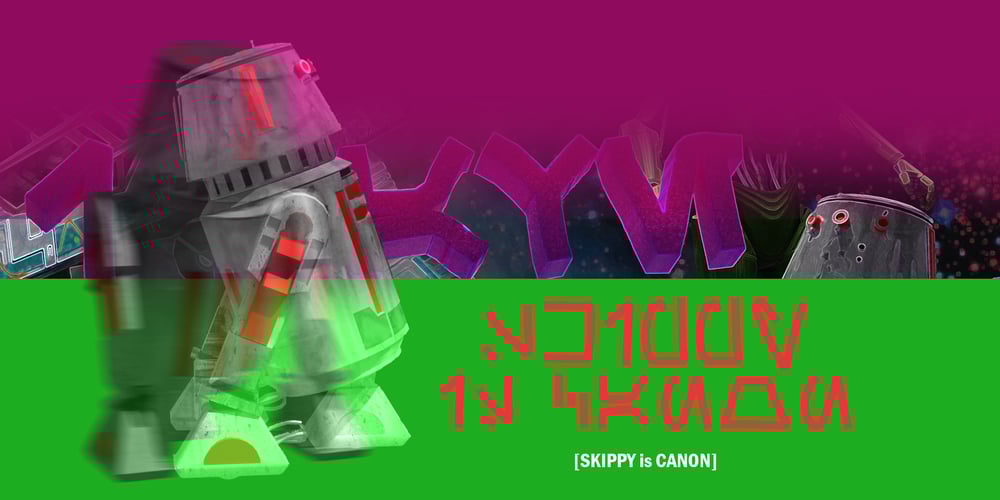
Skippy is Canon
Skippy is Canon font
Skippy is Canon Font Family was designed by Edward Schneider and published by Edd’s Aurebesh Fontworks. Skippy is Canon contains 1 styles and family package options. Working on a Star Wars project? This font is in the main Star Wars written language of Aurebesh, and contains all the additional letters found in the language as glyphs. Designed to be a blocky workmanlike font that has the roughness commonly found in Star Wars related visuals. All numbers are also included as well as central punctuation symbols.The name is a very obscure reference to the old Star Wars expanded universe, when a force-sensitive droid self destructed in order for Uncle Owen to purchase R2-D2.